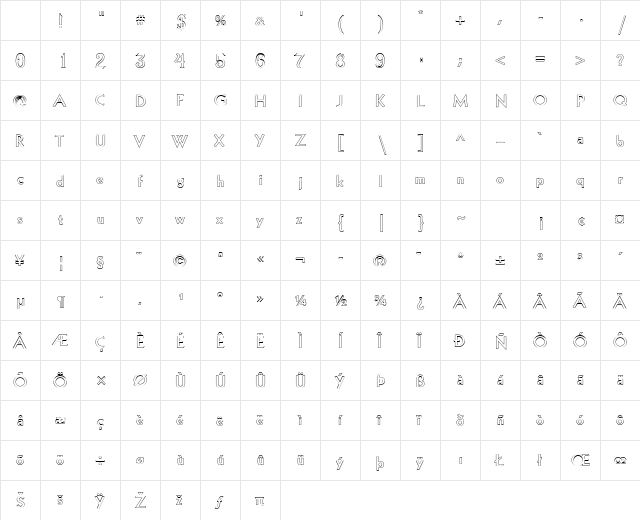
Complete Kufi LT Outline Regular glyph index. Displaying only characters natively supported by Kufi LT Outline Regular font.
Kufi LT Outline is built around its visual character rather than neutral utility - its distinctive forms are designed to make an impression at display sizes. Its slender proportions lend an understated elegance to any composition.
Font Pairing: Pair with a clean neutral sans-serif for body copy to let Kufi LT Outline's character lead without overwhelming the composition.
Pro Tip: Use Kufi LT Outline exclusively at display sizes - it was designed to be seen, not read at length. Let a neutral companion handle body copy.